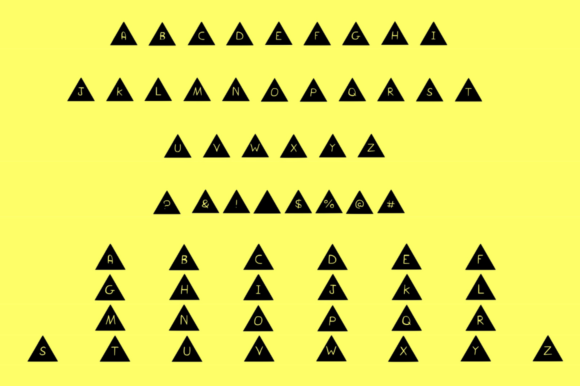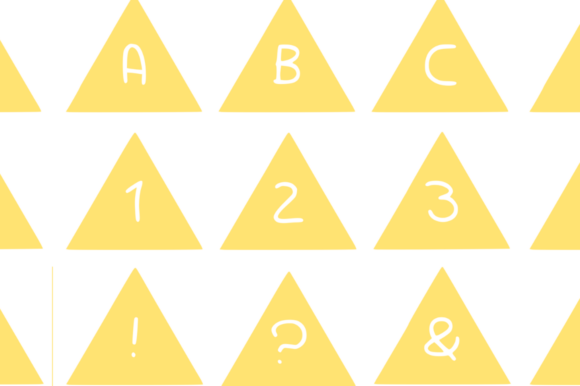
Introduction to Play Shapes Triangles Font
Remember that moment when you’re working on a creative project and you just can’t seem to find the right font to match your playful design? It’s like trying to find the perfect puzzle piece – you know it’s out there, but it’s hiding from you. That’s where the Play Shapes Triangles Font comes in – a cute, fun, and incredibly useful decorative font that’s perfect for adding a youthful touch to your creations.
This versatile design resource is a game-changer for designers, educators, and anyone looking to add a bit of whimsy to their work. With its transparent background and high-quality design, it’s perfect for teaching materials, game designs, and more. And the best part? It’s available for free download, making it an accessible and valuable addition to any design toolkit.
Key Features of Play Shapes Triangles Font
- Unique and playful design, perfect for creative projects and adding a touch of whimsy to your work.
- High-quality font with transparent background, ideal for use on various design resources, including web and print materials.
- Perfect for use in logos, icons, graphics, and other design elements where a bold, geometric shape is required.
- Can be easily customized and combined with other design elements to create a unique visual identity for your project.
Honest Review: Play Shapes Triangles Font
As a designer, I’m always on the lookout for high-quality design resources that can elevate my creative projects. I recently stumbled upon the Play Shapes Triangles Font, and I’m excited to share my honest review.
- ✨ The font is incredibly versatile and can be used for a wide range of creative projects, from kids’ activities to modern branding.
- ✨ The transparent background option is a game-changer for designers who need to overlay text on images or videos.
Any limitations:
- ⚠️ The font may not be suitable for complex or formal designs, as it has a more playful and casual feel.
- ⚠️ Some users may find the font too bold or overwhelming, depending on the design context.
Overall, I’m impressed with the Play Shapes Triangles Font. It’s a high-quality design resource that can add a fun and creative touch to any project. If you’re looking for a free font that’s perfect for kids’ activities, social media graphics, or other playful designs, this is definitely worth checking out.
To get the most out of the Play Shapes Triangles Font, experiment with different font combinations and styles to create a unique visual identity for your design project. You can also use the font in conjunction with other design elements, such as shapes and icons, to create a cohesive and visually appealing design.
The Play Shapes Triangles Font is ideal for a variety of creative projects, including graphic design, digital art, and print design. Its transparent background feature makes it a great choice for creating social media graphics, web design elements, and other digital design assets.
Q: Can I use the Play Shapes Triangles Font in high-resolution print projects, or is it limited to digital use?
The Play Shapes Triangles Font is suitable for both digital and print use. Its high-quality design and transparent background ensure that it will look great in various resolutions and print sizes. However, please note that you may need to adjust the font size and resolution according to your specific project requirements.